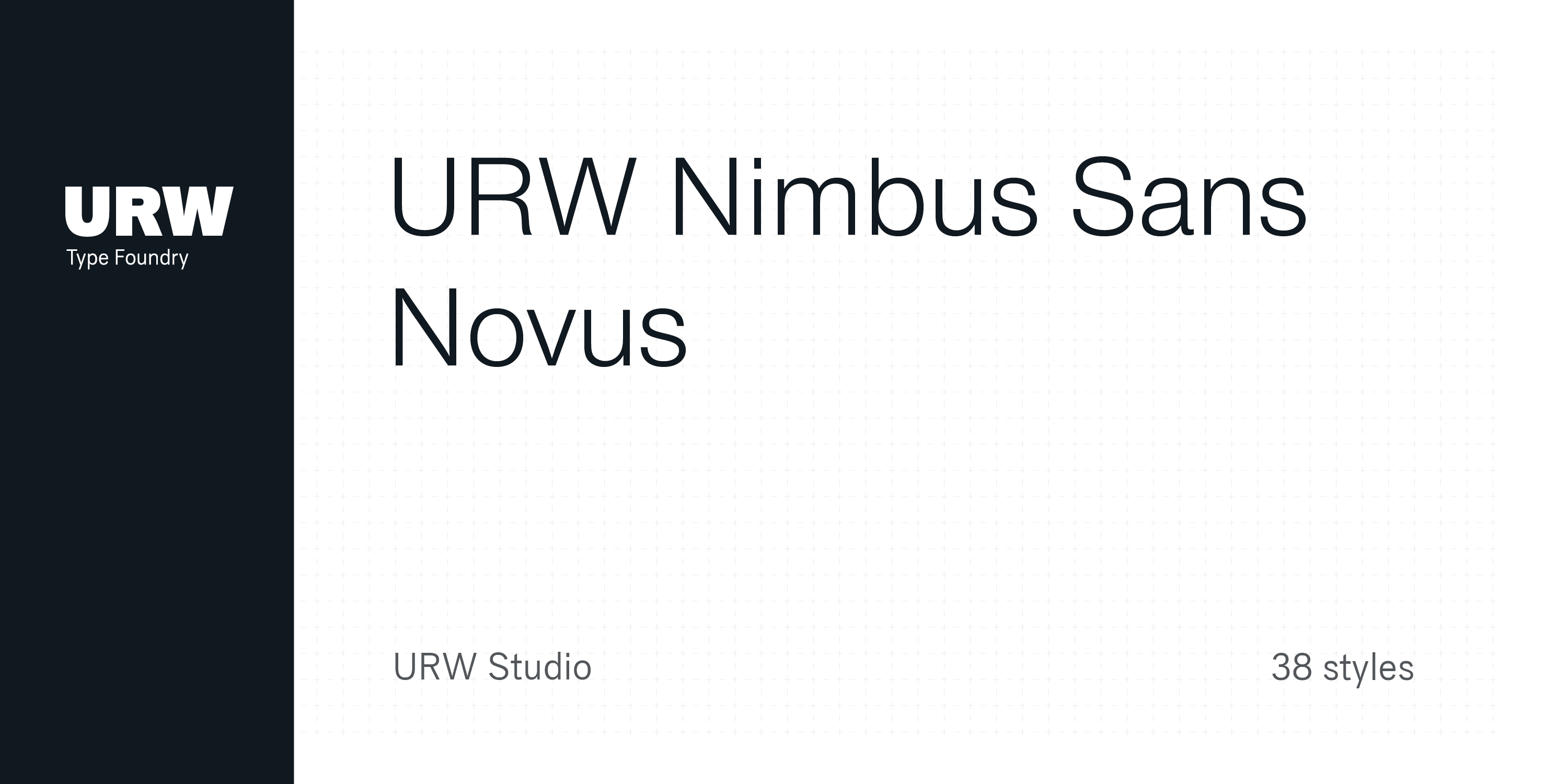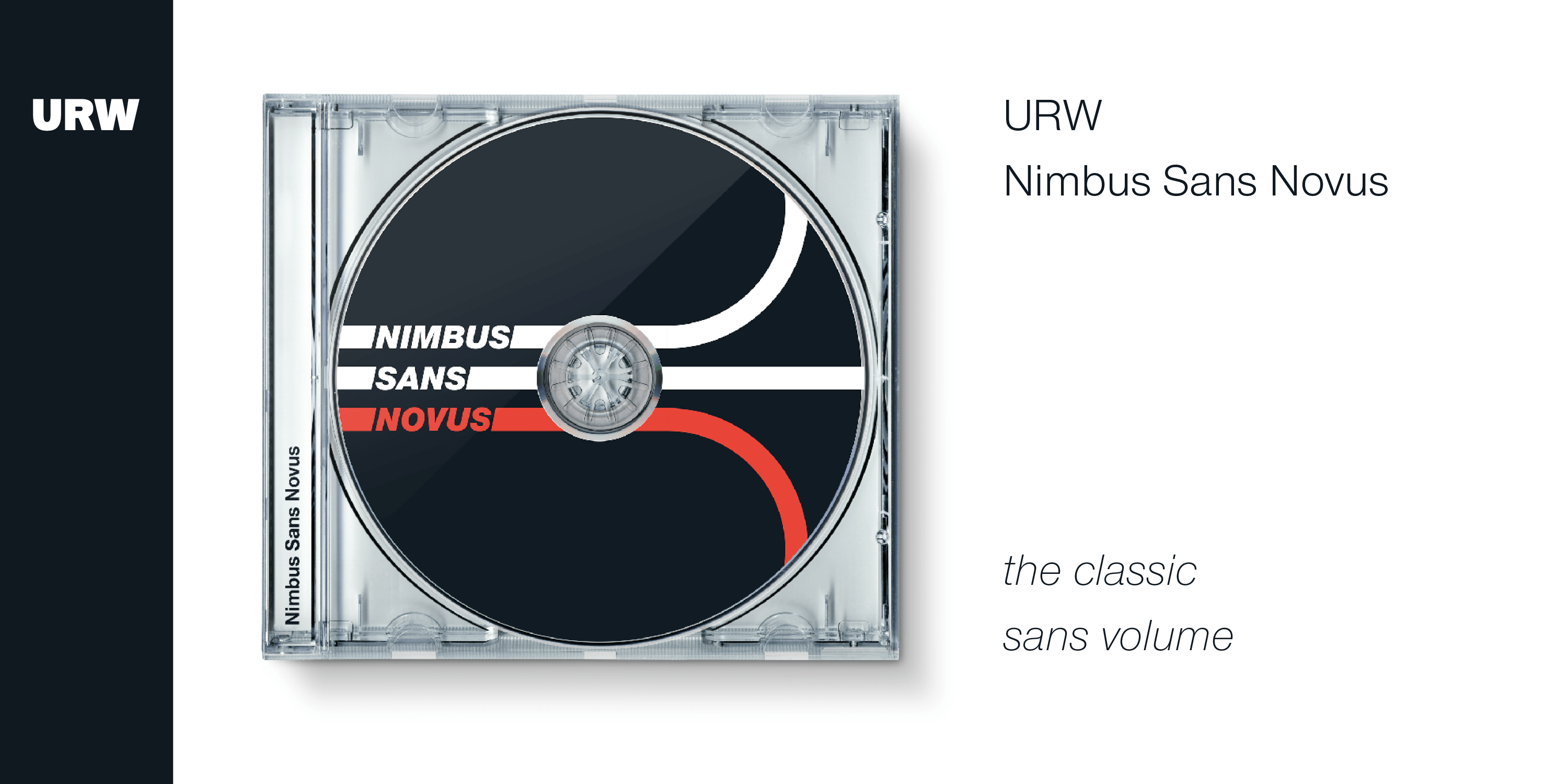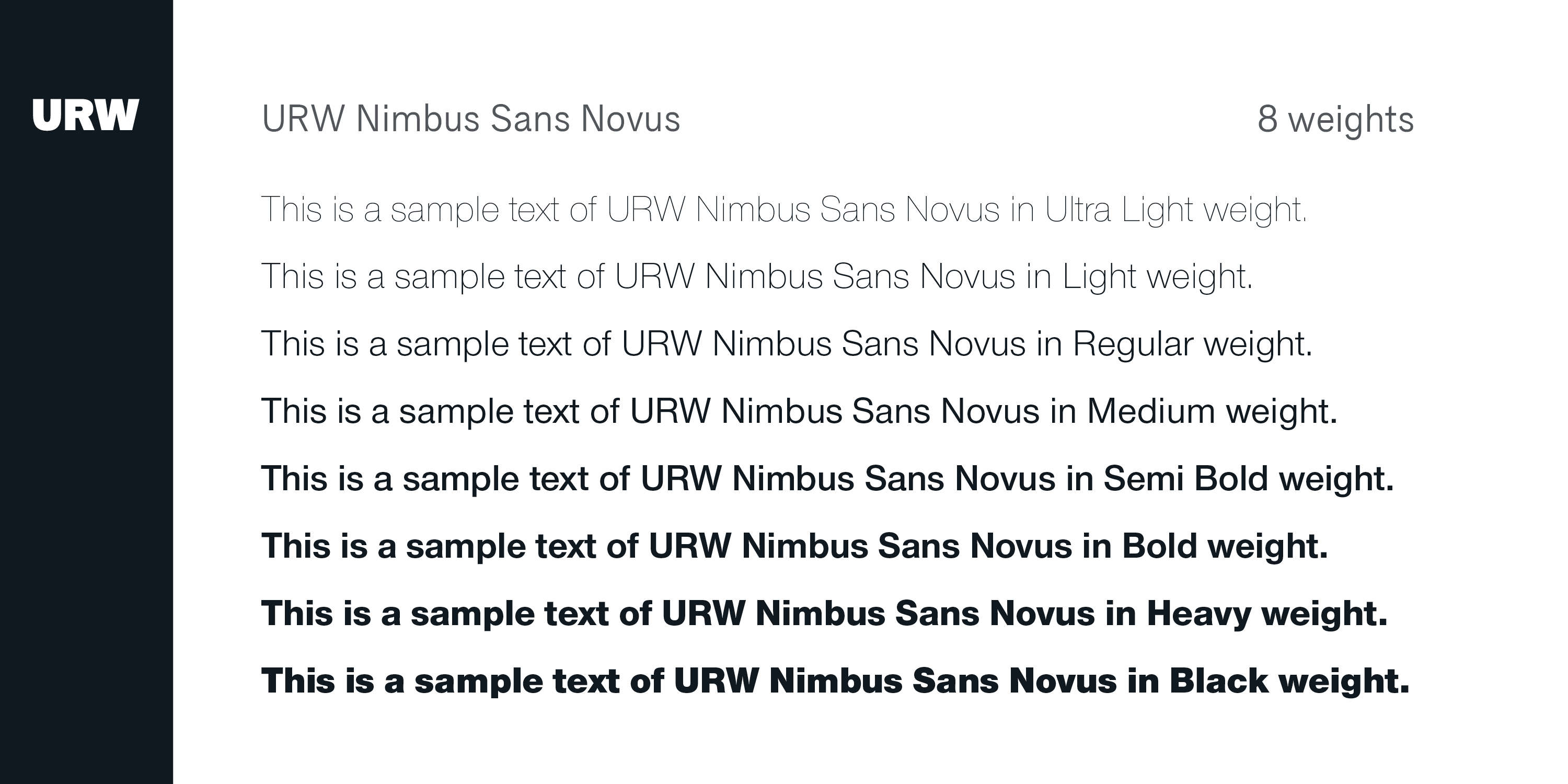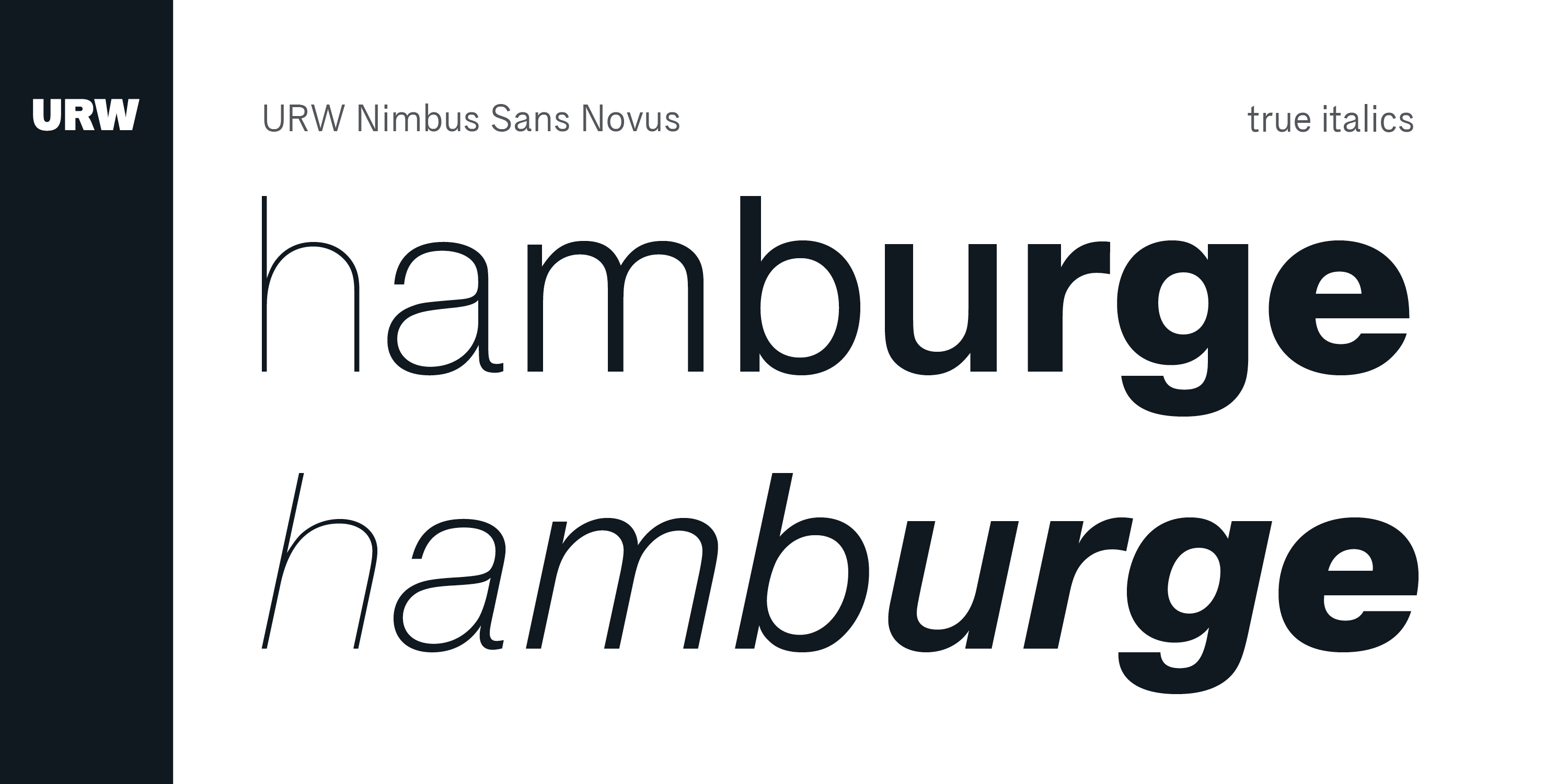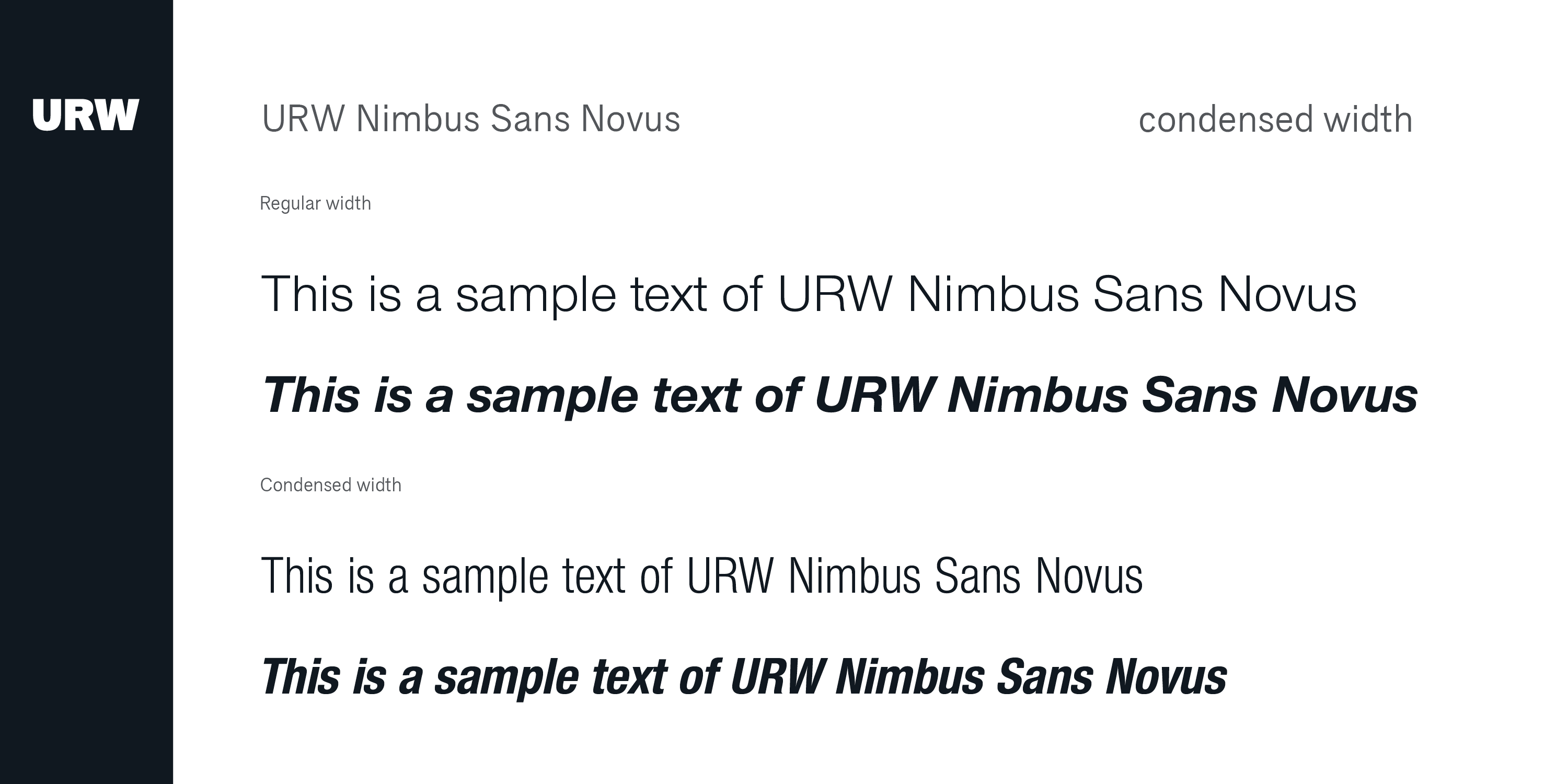
Nimbus Sans Novus
Font Family by URW++
The first versions of Nimbus Sans have been designed and digitized in the 1980s for the URW SIGNUS sign-making system. Highest precision of all characters (1/100 mm accuracy) as well as spacing and kerning were required because the fonts should be cut in any size in vinyl or other material used for sign-making. During this period three size ranges were created for text (T), the display (D) and poster (P) for small, medium and very large font sizes. In addition, we produced a so-called L-version that was compatible to Adobe’s PostScript version of Helvetica. Nimbus was also the product name of a URW-proprietary renderer for high quality and fast rasterization of outline fonts, a software provided to the developers of PostScript clone RIPs (Hyphen, Harlequin, etc.) back then. Also in the 80s, a new, improved version of the Nimbus Sans, namely Nimbus Sans Novus was designed. Nimbus Sans Novus was conceptually developed entirely with URW’s IKARUS system, i.e. all styles harmonize perfectly with each other in terms of line width, weight, proportions, etc. On top of that, Nimbus Sans Novus contains more styles than Nimbus Sans.